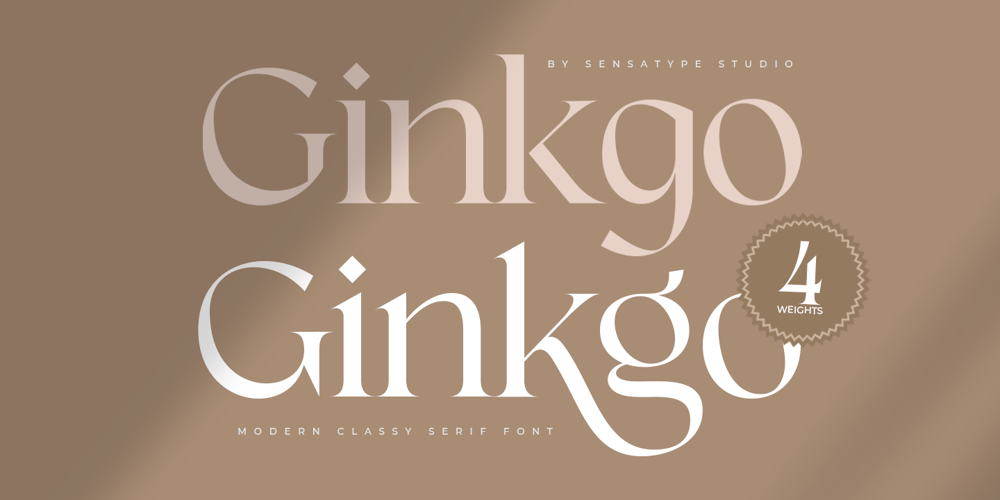
Ginkgo SS Font Family was designed by Zamroni Hamzah and published by Sensatype Studio. Ginkgo SS contains 4 styles and family package options. Ginkgo is Modern Classy Serif Font FamilyCreated to answer for any person who needs Classy Modern Serif to leverage designer or product owner that need solutions to make their design look more classy and elegance. And specially for Ginkgo, We just released 4 weights, any ligatures, and any alternate characters to help you create unlimited variations for creative needs.Ginkgo font family ready with: 4 weights: Light, Regular, Bold, Black Hundred options to get creative variations (combination of Alternate, Ligature, Weight) Preview as a sample what can you do with Ginkgo font-family Ready with Lowercase and Uppercase characters Wish you enjoy our font and if you have a question, don’t hesitate to drop message & I’m happy to help ๐